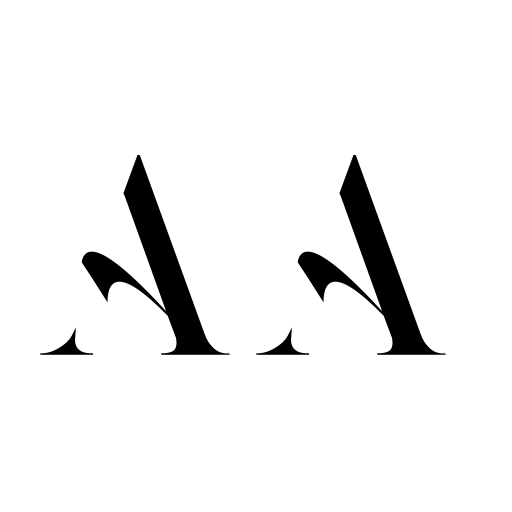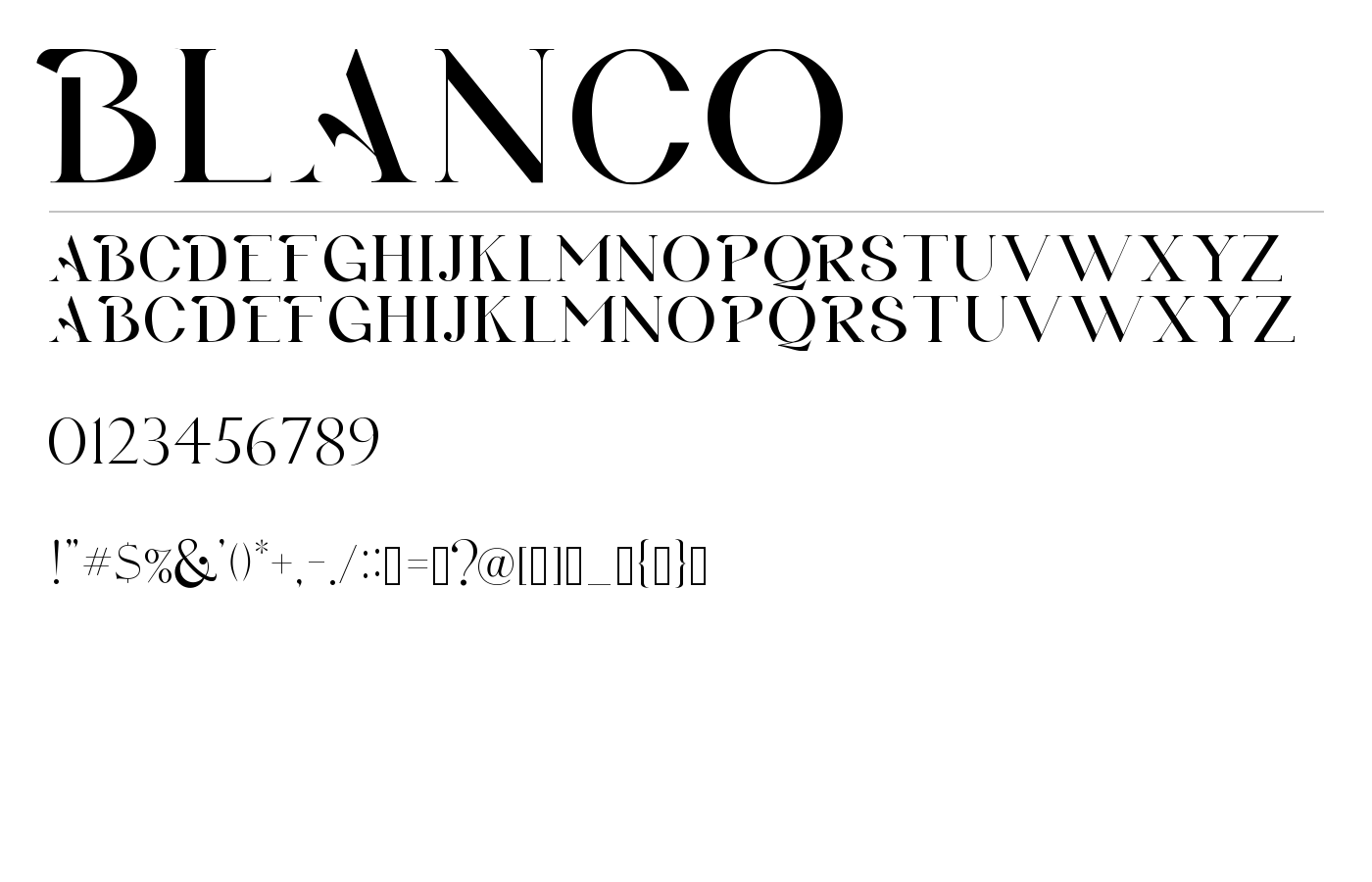
BLANCO is a striking modern serif font characterized by high contrast between thick and thin strokes and elegant, sharp serifs with delicate bracketed curves. Its tall, narrow letterforms and refined details give it a sophisticated, luxurious feel, making it ideal for upscale branding, editorial headlines, and fashion-focused design where a bold yet graceful statement is needed. This font works beautifully in contexts that demand elegance and impact, combining classic serif elegance with contemporary style.
BLANCO Font
About BLANCO Font